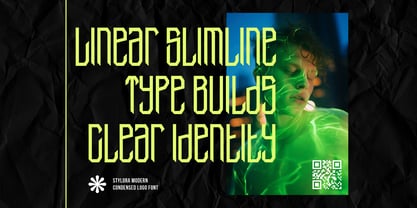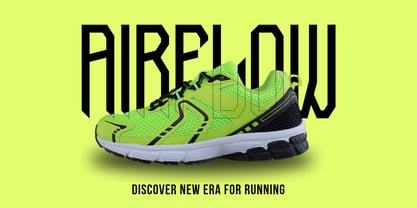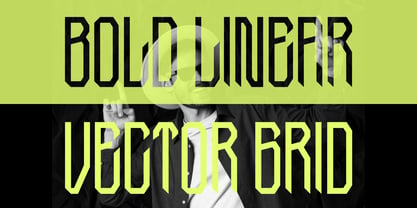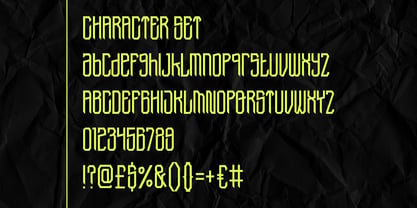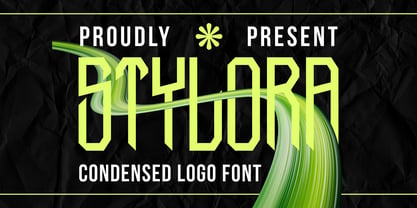
Stylora
by Shanaf
The Stylora Font Family was designed by Yesie Erma Yunita and published by Shanaf. Stylora contains 1 styles. More about this family
Stylora Condensed Logo Font is a modern typographic innovation built for impact and precision. Designed with a vertically extended, slimline silhouette, each character exhibits a futuristic elegance that effortlessly blends angular geometry with stylish legibility. The letterforms feature sharp diagonal cuts and clean vertical strokes, giving the font a bold, commanding presence without compromising space efficiency. The consistent weight, hexagonal corners, and sharp apexes amplify its technological aura—making it ideal for logos, packaging, and digital branding in modern, sci-fi, or high-performance themes.
Every glyph in Stylora has been thoughtfully sculpted to maintain visual consistency while evoking a sleek, high-tech identity. The font thrives in monochrome, neon, or gradient environments, adapting well to digital and print media alike. Whether you’re designing for athletic shoes, esports visuals, movie titles, or fashion-forward labels, Stylora delivers clarity, speed, and futuristic sophistication in one compact package. Its condensed structure ensures maximum readability in narrow layouts, while its distinctive style guarantees brand memorability. Designed not just to be seen, but to be remembered.
Designers: Yesie Erma Yunita
Foundry: Shanaf